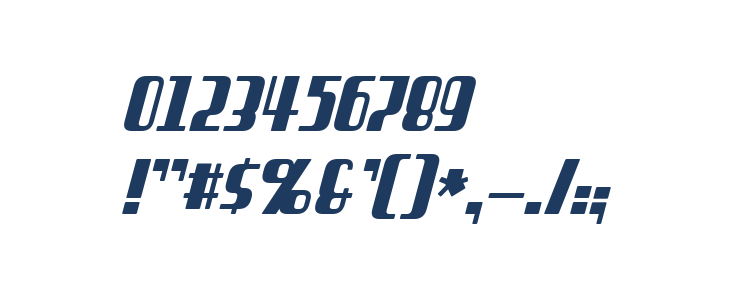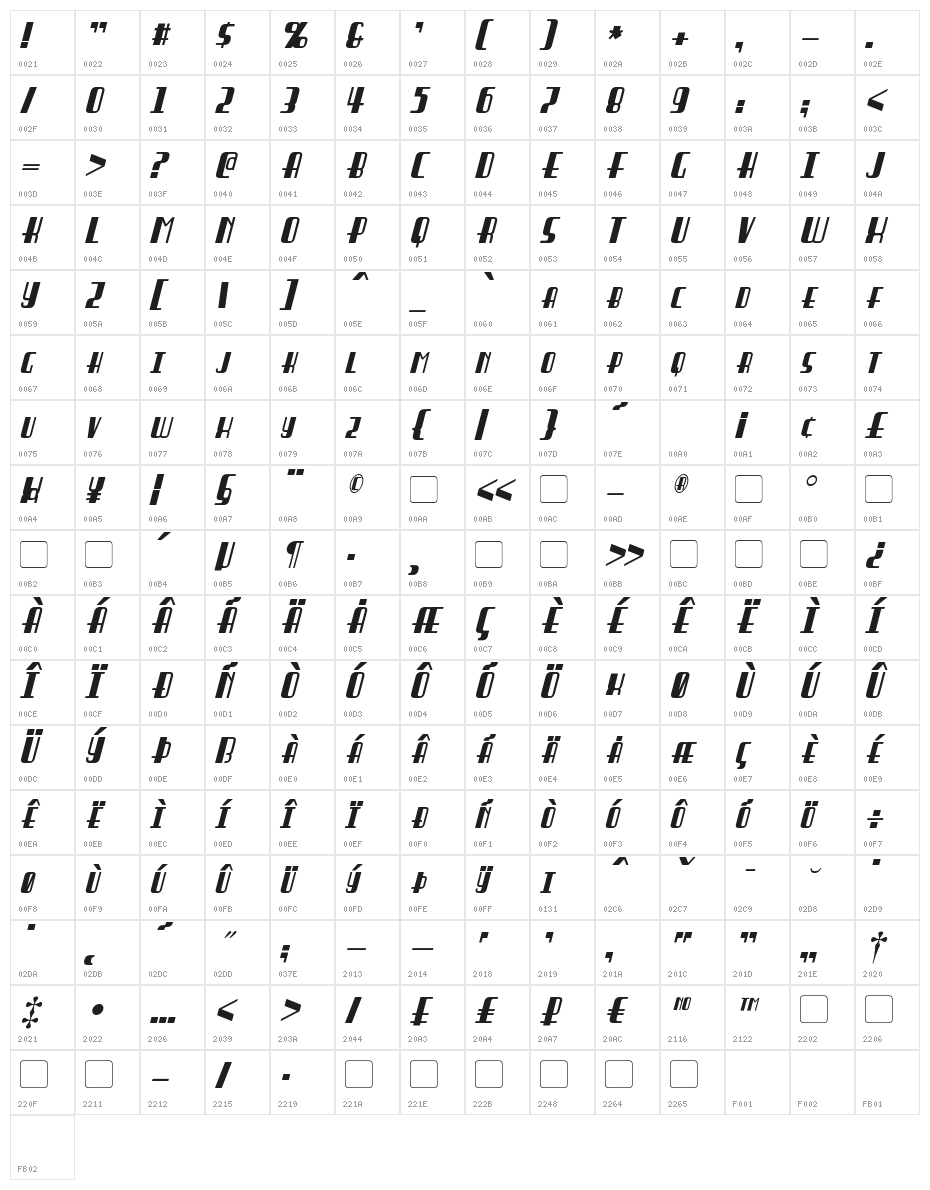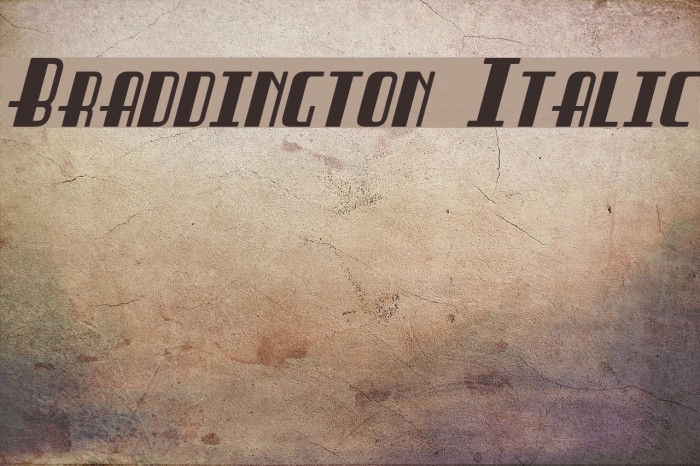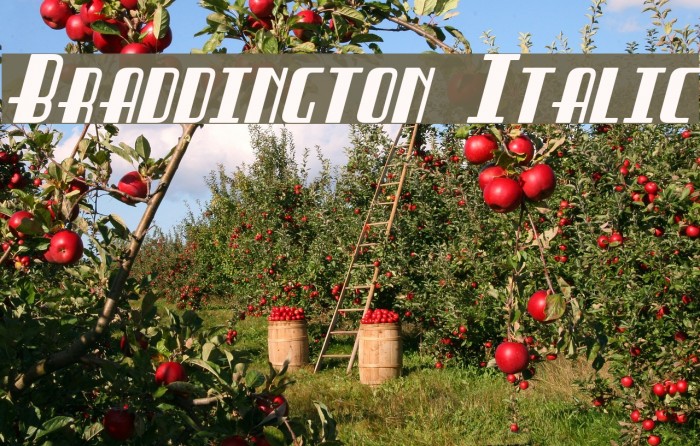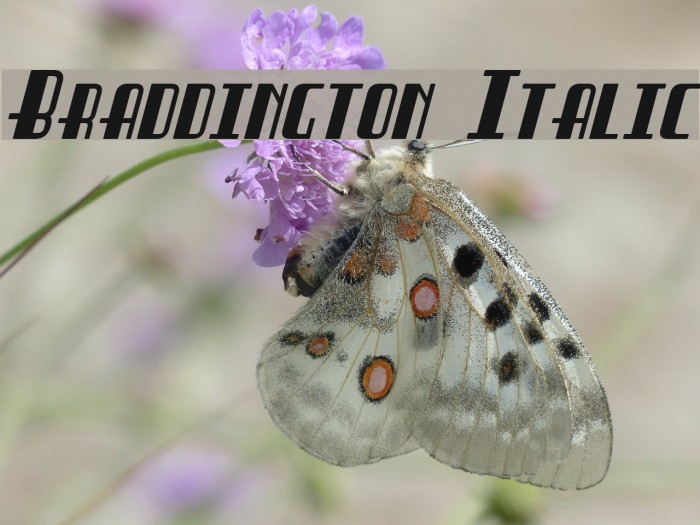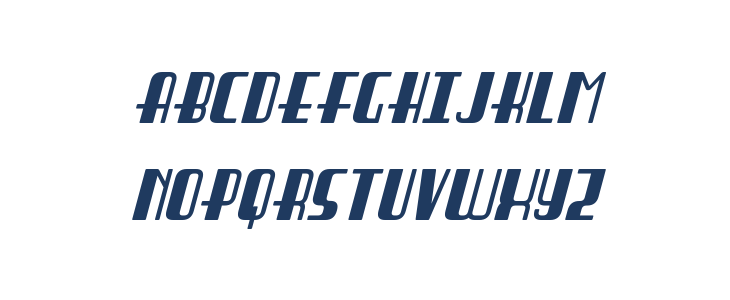
Braddington Italic Font
Braddington Italic Description
This font features a dynamic and modern italic style with a distinct slant, giving it a sense of motion and energy. The characters are bold and slightly condensed, with sharp angles and clean lines that create a sleek and contemporary look. The uppercase and lowercase letters maintain a consistent design, enhancing readability while adding a touch of sophistication. The numerals and special characters are designed to complement the overall style, making this font versatile for various applications. Its bold presence and unique style make it suitable for projects that require a strong visual impact.